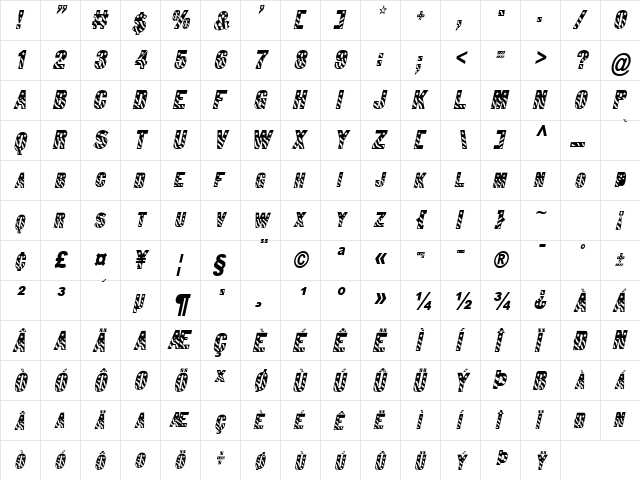
Bunting 1-Condensed Italic Font Preview
Design Context for Bunting 1-Condensed Typeface
Bunting 1-Condensed is a composed and adaptable typeface that performs quietly and consistently across a wide range of design contexts. The slanted form adds forward momentum and visual energy. The condensed width makes it efficient for tight spaces without sacrificing legibility.